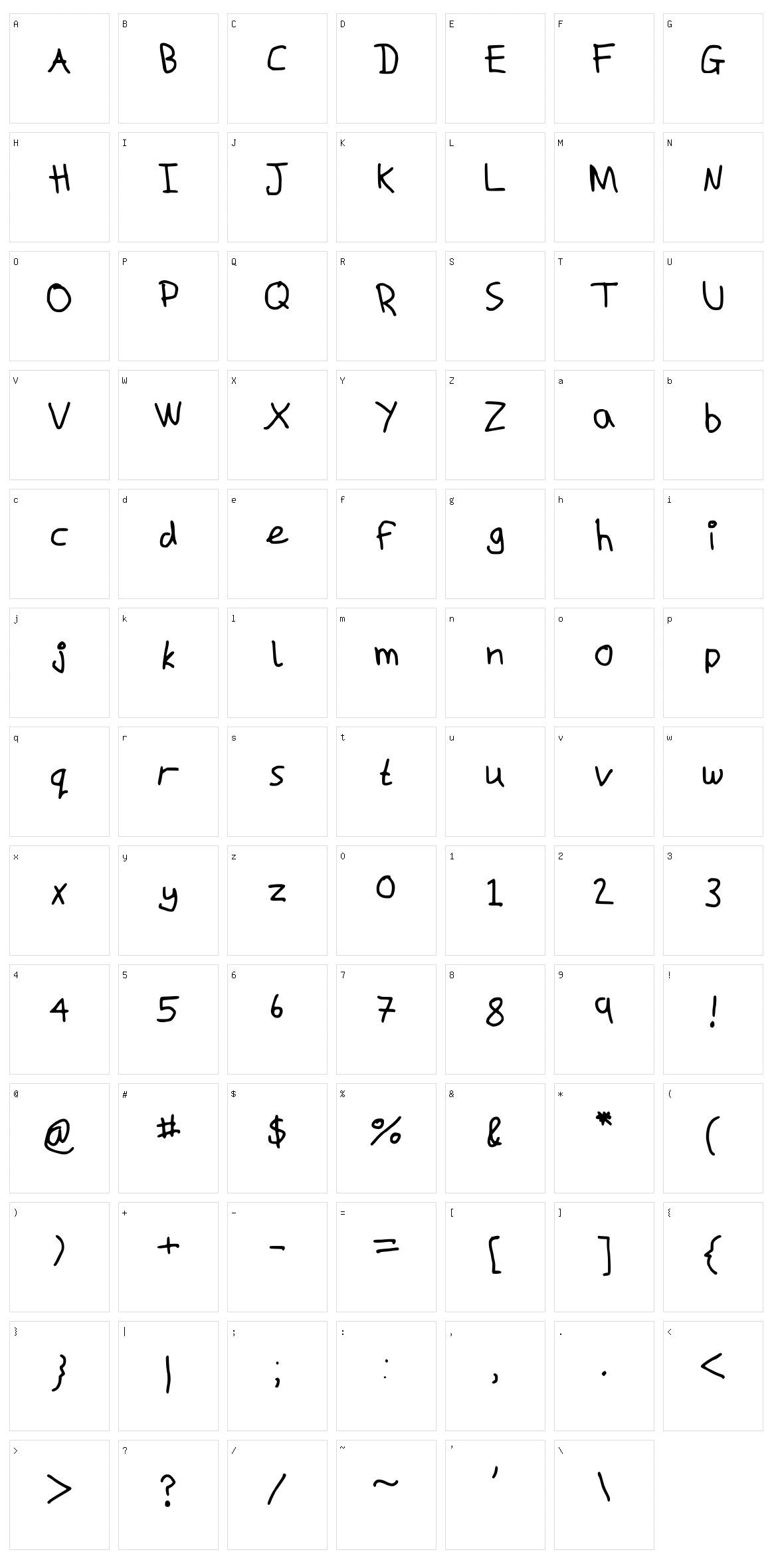
The free font Macs handwriting is carefully designed by Mackenzie Rudd, showcasing a thoughtful balance of creativity and usability and falls under the Script font style. When you download the ZIP file, it contains only 19.91 KB of font files, making it lightweight and quick to download. Please review the license details below to understand permitted usage and distribution rights. If license information is not available, we recommend using this font for personal projects only or contacting the author directly for commercial usage permissions.